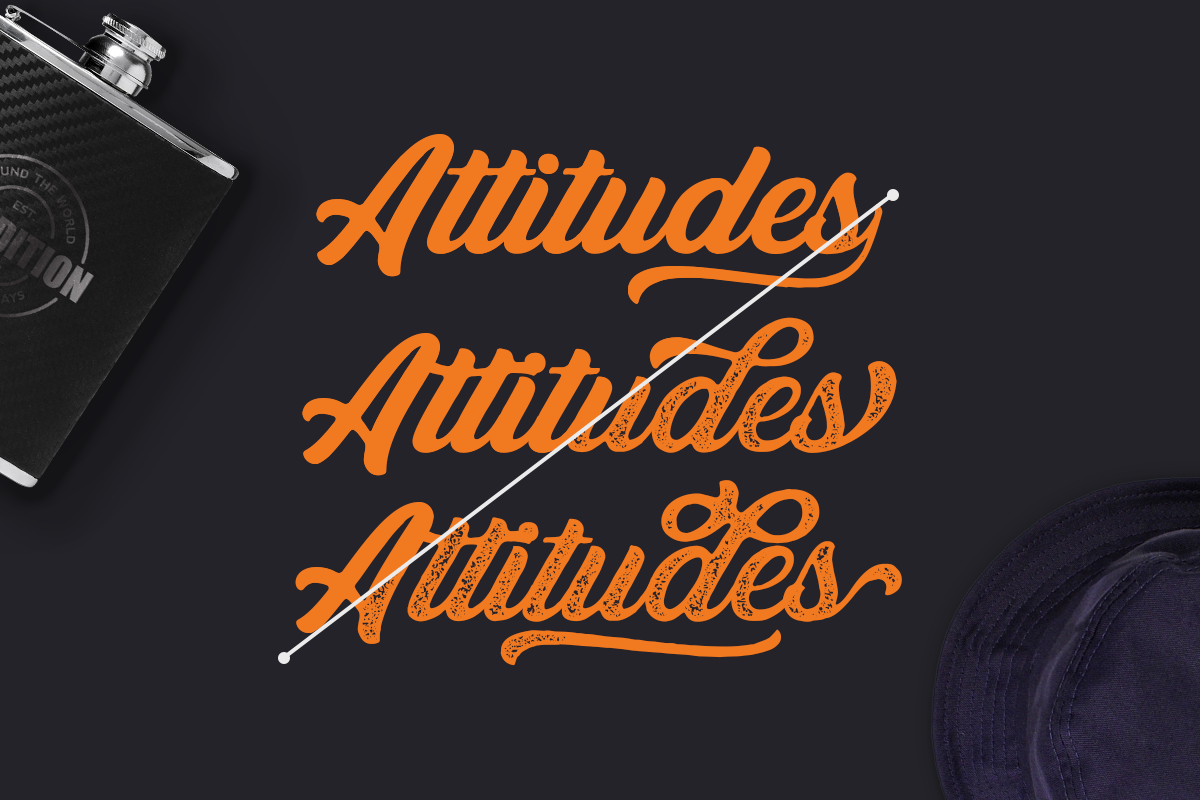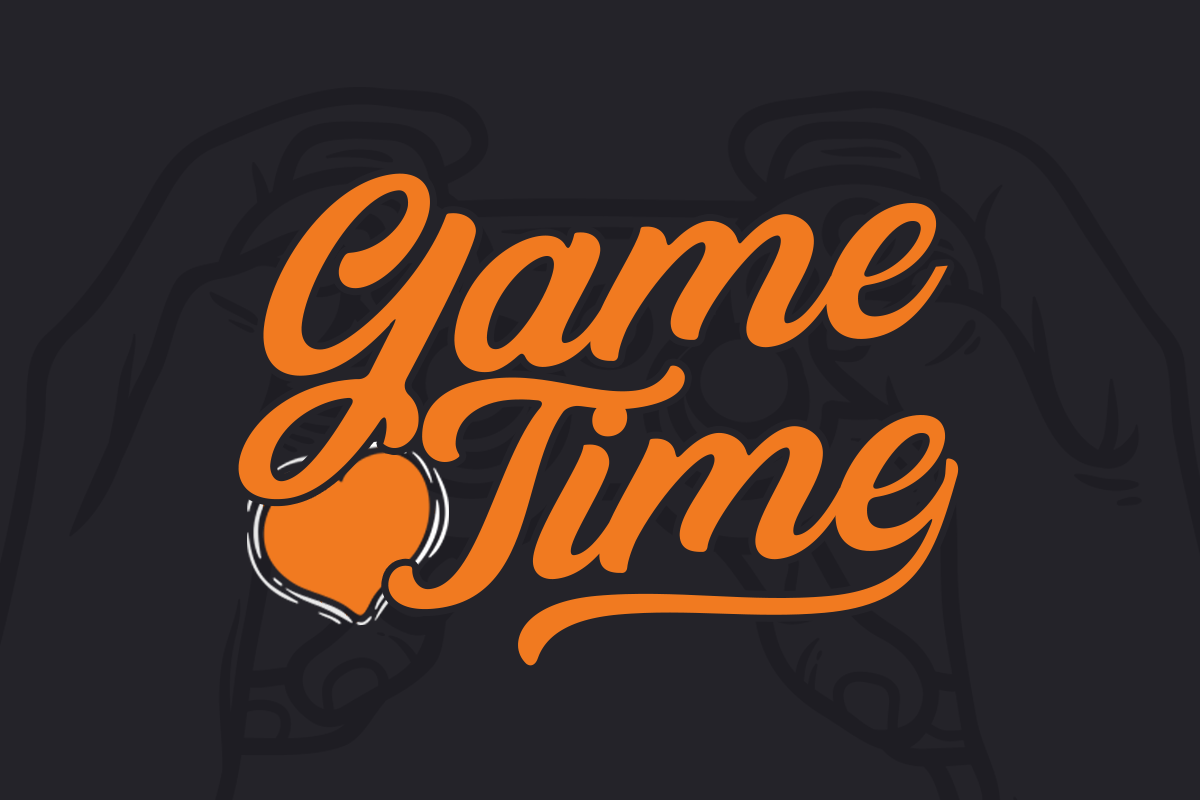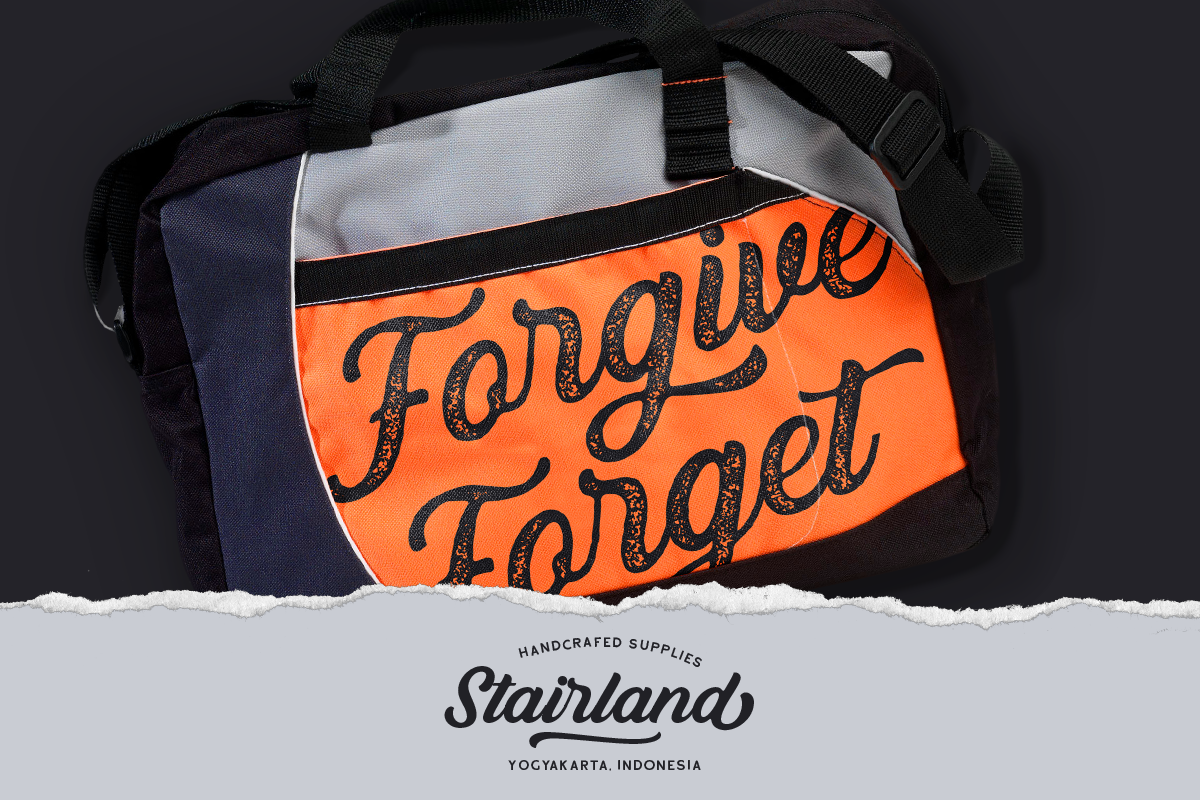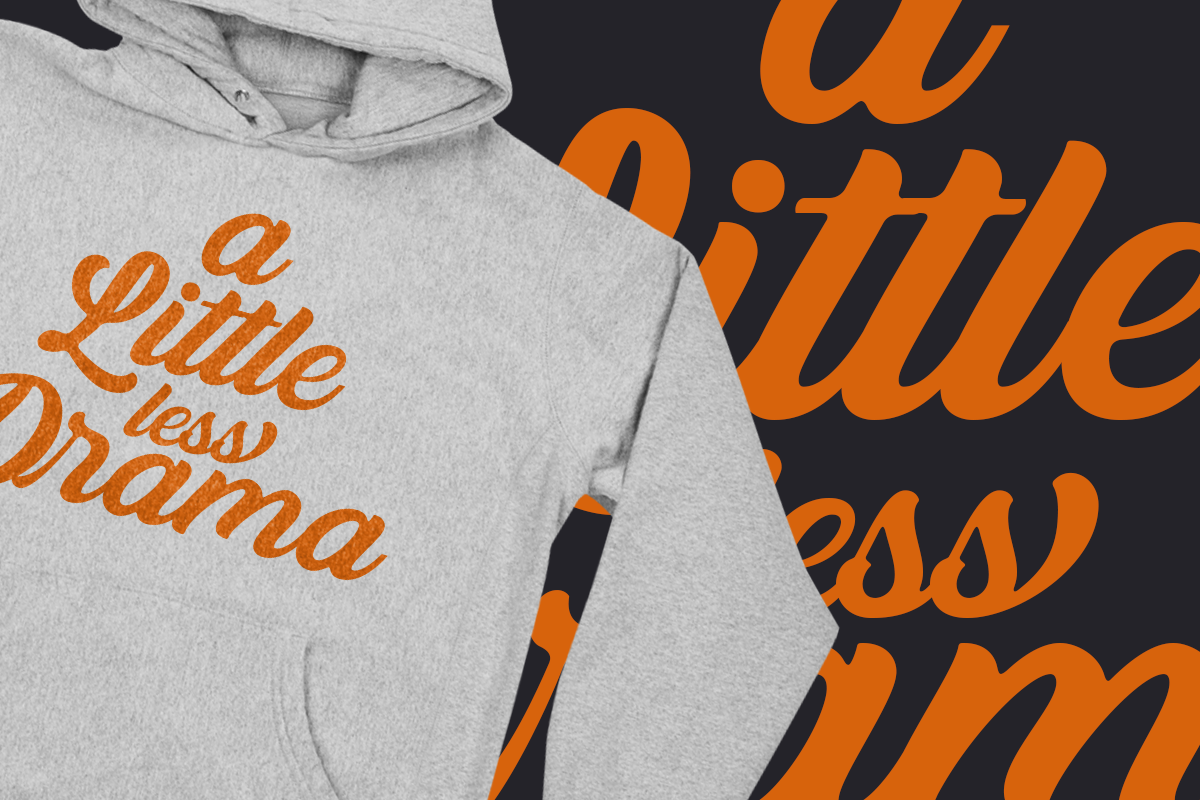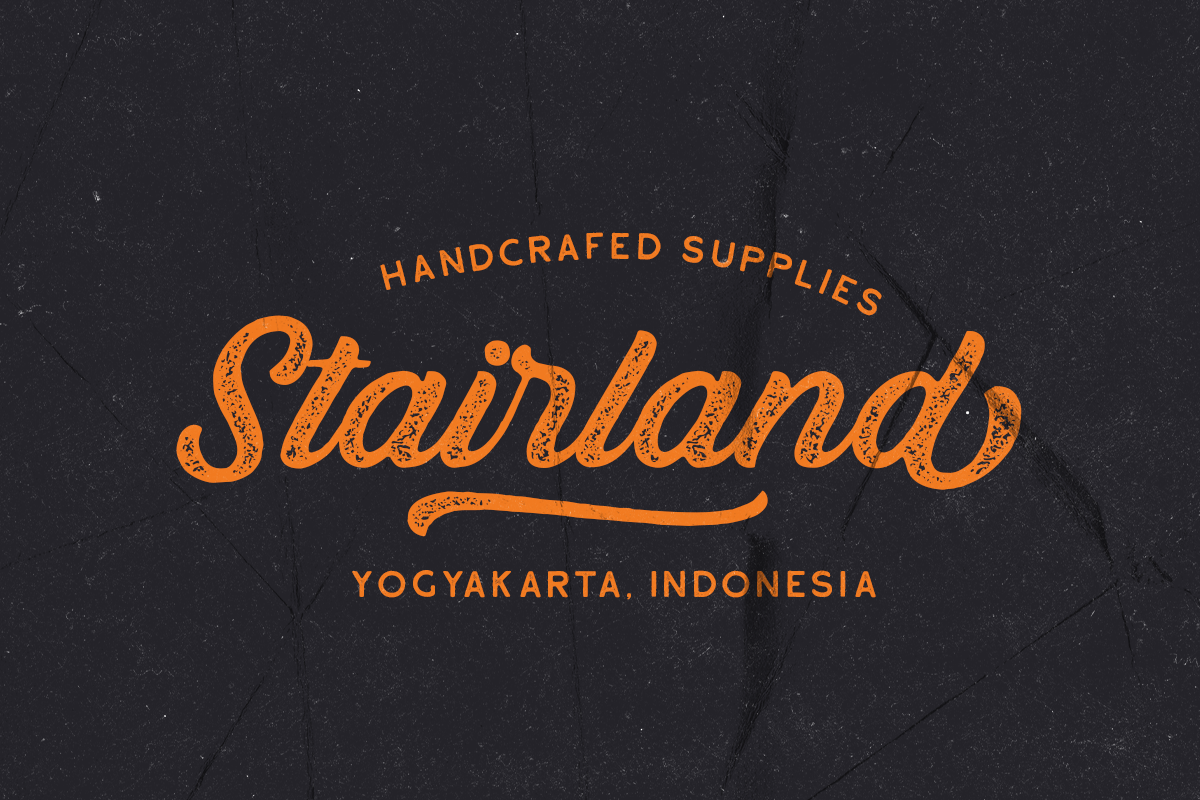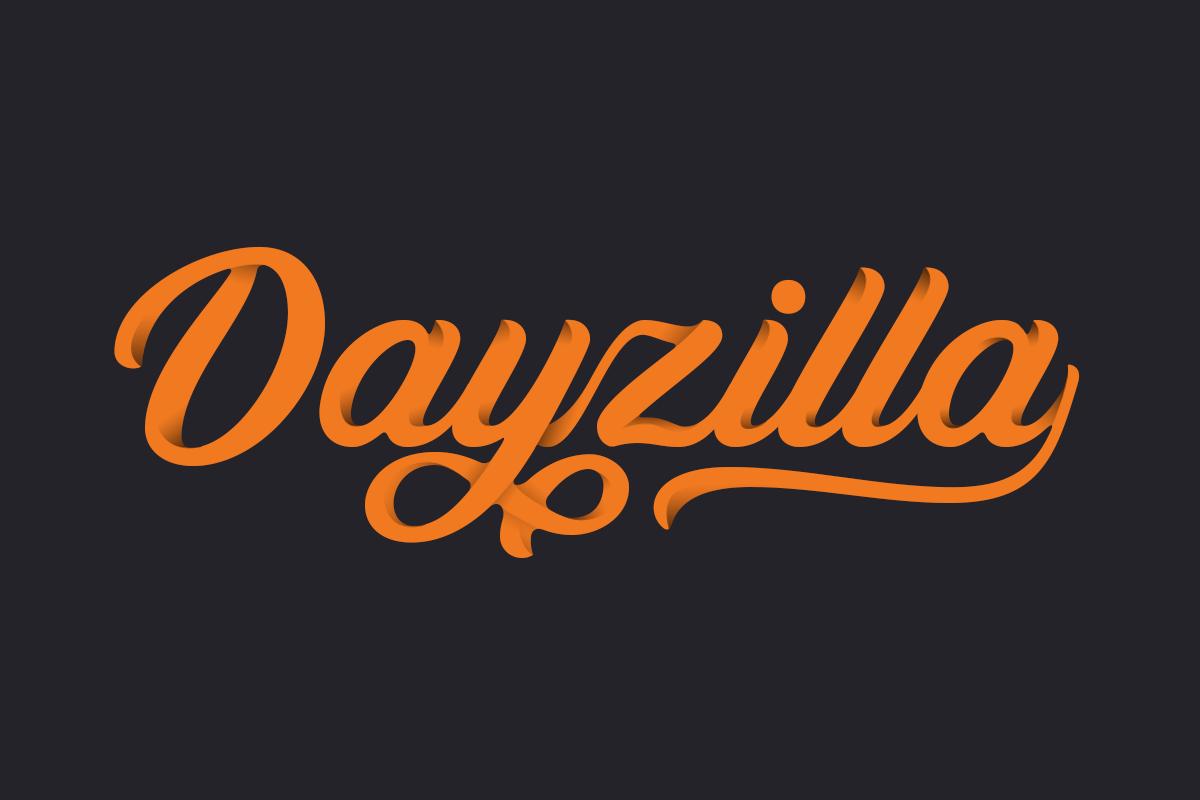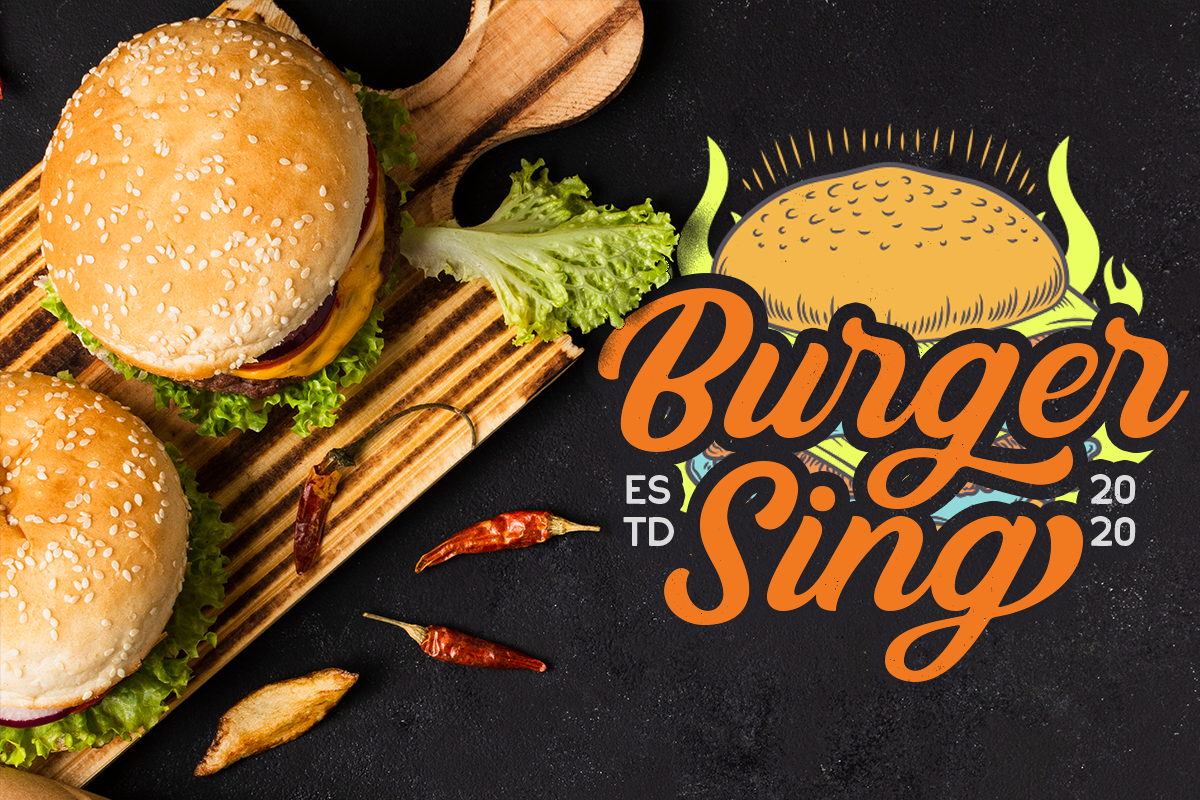
Bandira Script Typeface
Introducing, Bandira Script Typeface. Bandira Script Typeface gives you the handcrafted feel that perfect for you who needs a typeface for especially logotype, apparel, invitation, branding, packaging, advertising etc. This typeface is comes in uppercase, lowercase, punctuations, symbols & numerals, 06 stylistic set alternate, ligatures, swash etc also support multilingual and already PUA encoded. to access the swash just type 1 ... 3 in the end of the word, example Bandira1, Bandira2, Bandira3
Why Bandira Script Typeface is worth a look
Bandira Script Typeface by Rillatype fits naturally into Branding, posters, packaging, typography.